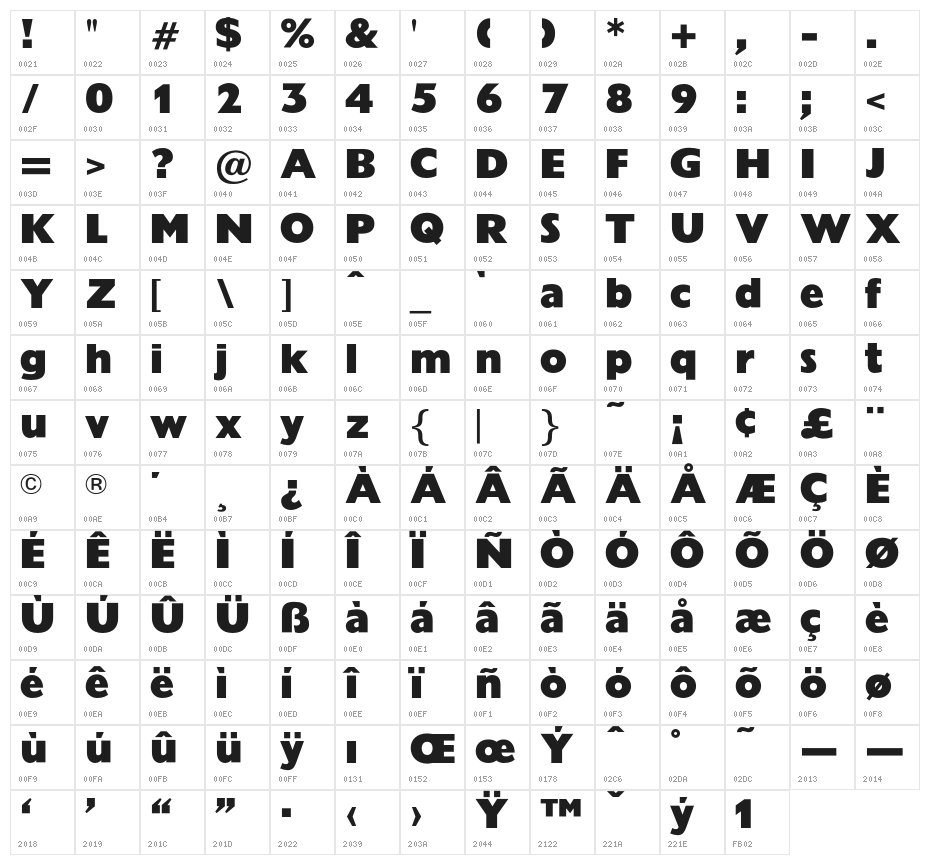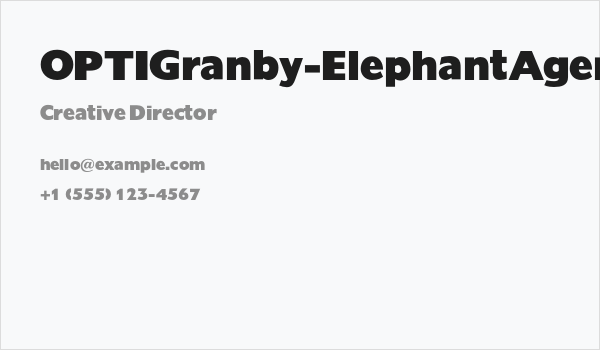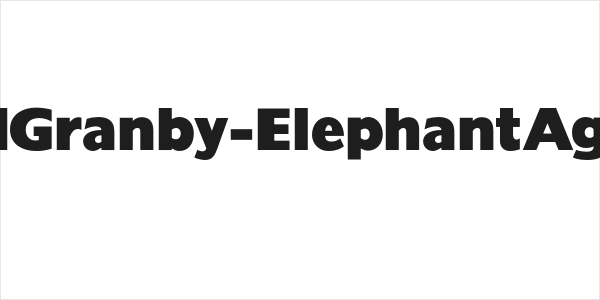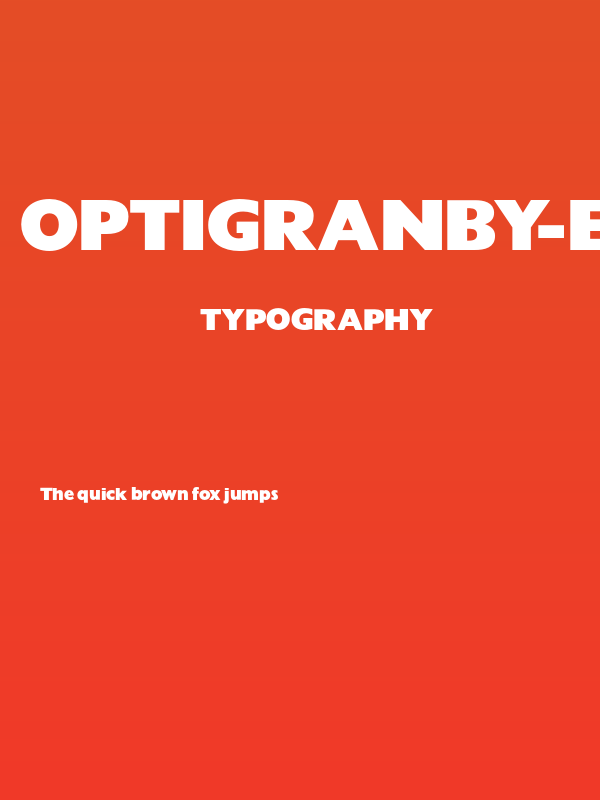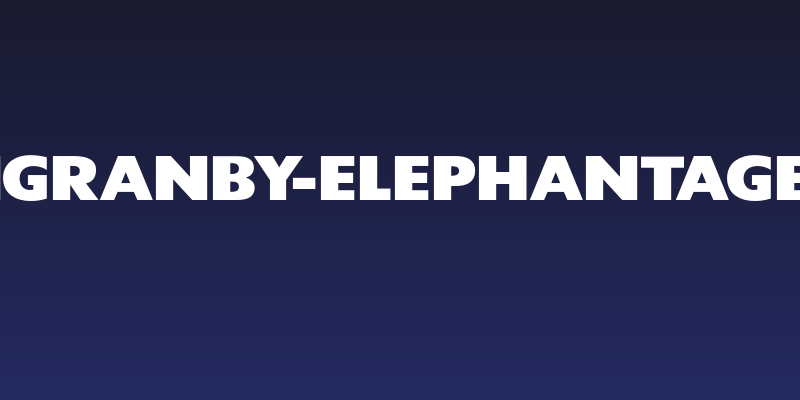
OPTIGranby-ElephantAgency Font
OPTIGranby-ElephantAgency Description
This font features a bold and impactful design with thick, uniform strokes that convey strength and modernity. The uppercase letters are particularly striking, with a strong presence that commands attention. The lowercase letters maintain the same boldness, ensuring consistency across text. Numbers and special characters are equally robust, making them suitable for a variety of applications. The overall style is clean and contemporary, with a focus on readability and visual impact. The font's design is versatile, making it ideal for both digital and print media.
| Proposed Projects | Ideal for branding, advertising, headlines, posters, and digital media where a strong, modern presence is required. |